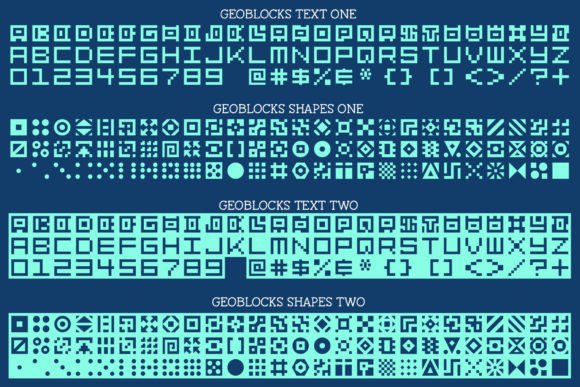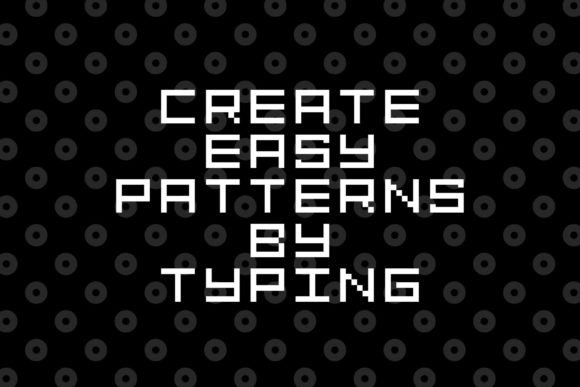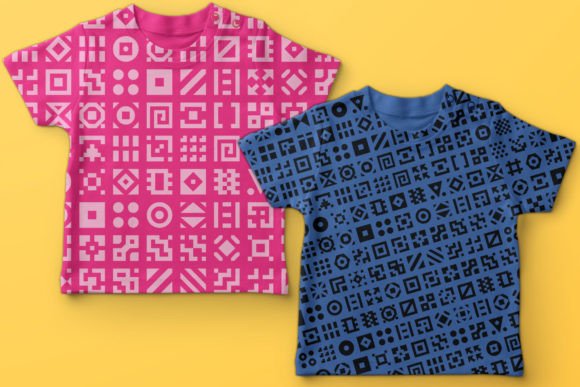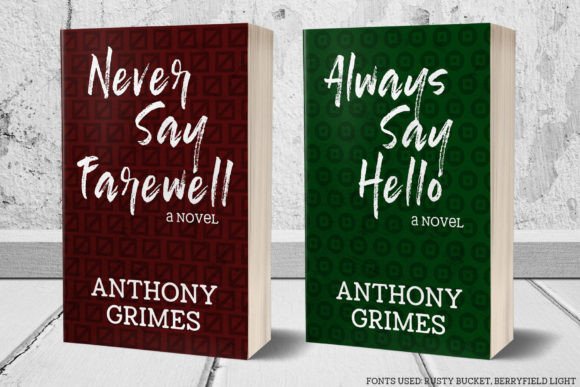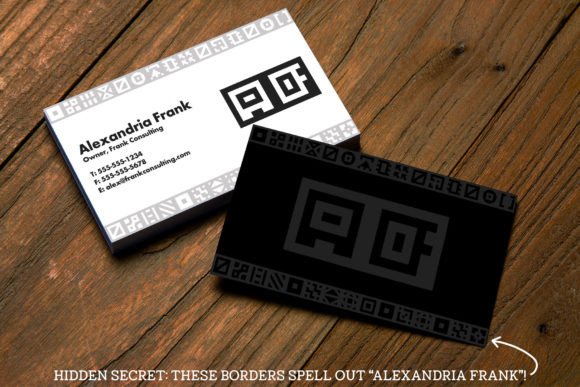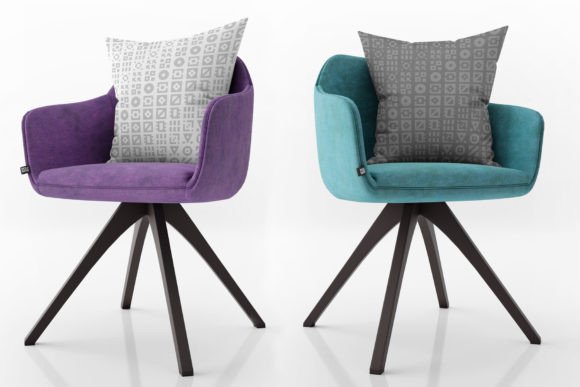
Introducing GeoBlocks Font: Unleash Your Creativity with Geometric Patterns
And now, for something completely different! GeoBlocks is a family of four fonts that will take your design and crafting projects to the next level. This innovative font family consists of two sets of square alphabet, number, and punctuation characters with a pixel-style look, and two sets of decorative squares full of geometric shapes. The possibilities are endless, and we’re excited to show you how to make the most of this versatile font.
What Makes GeoBlocks Font So Special?
GeoBlocks is not just a font; it’s a creative tool that allows you to generate an infinite number of patterns, simply by typing. The font comes in four styles: two alphabet fonts (with square characters and pixel-style look) and two decorative fonts (with geometric shapes). Style one has no background, while style two has a filled square background. This unique combination offers you the flexibility to experiment with various designs and create something truly unique.
Exploring the Alphabet Fonts
The alphabet fonts in GeoBlocks are designed to be easy to use and highly customizable. The lowercase letters are simpler and easy to read, making them perfect for creating text-based designs. On the other hand, the uppercase letters are stylized, allowing you to use them as a secret code. This feature is particularly useful for crafters and designers who want to add an extra layer of meaning to their work.
Working with Decorative Squares
The decorative fonts in GeoBlocks are where the magic happens. These fonts feature geometric shapes that can be combined to create stunning patterns. You can use the blocks in a regular repeating pattern or create a random look by typing freely. The choice is yours, and the results are always surprising and delightful.
Tips for Creating Patterns with GeoBlocks
Creating patterns with GeoBlocks is easy and fun. Here are a few tips to get you started:
- Start simple: Begin with a single font style and experiment with different patterns.
- Mix and match: Combine different font styles to create unique and complex designs.
- Play with background: Use the filled square background to add depth and interest to your designs.
- Experiment with language support: Use the limited number of lowercase accented characters to create designs that support multiple languages.
Inspiration from Promotional Images
To help you get started, check out the promotional images that showcase the possibilities of GeoBlocks. These images will give you ideas on how to use the font to create stunning designs, from simple and elegant to complex and playful. You’ll also find guides on how to create simpler repeating patterns, which are perfect for beginners.
GeoBlocks Font is a dream come true for designers and crafters. Whether you’re creating digital designs or handmade crafts, this font offers endless possibilities for creative expression. Use it to add a unique touch to your projects, from stationery and cards to posters and social media graphics.
| Font Name | Geoblocks Font |
| Author | GeekMissy |